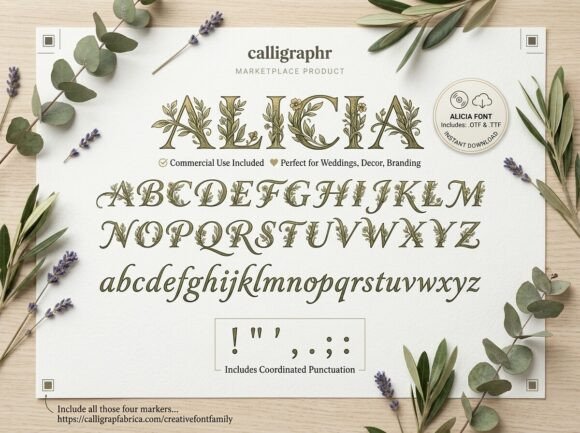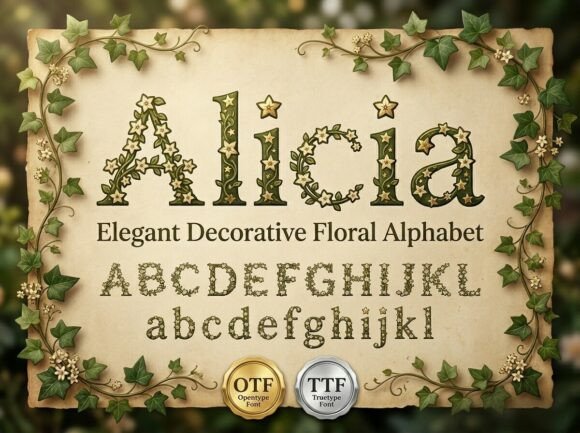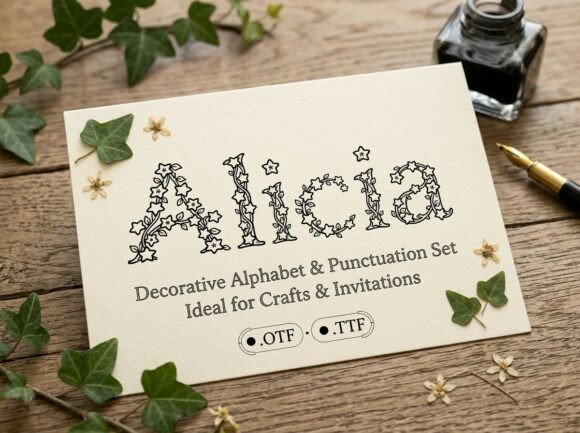
Alicia: The Botanical Serif Collection Redefining Classic Elegance
In the realm of typography, few fonts manage to capture the essence of elegance and organic beauty as effectively as Alicia. This high-contrast serif font, intertwined with lush botanical details, is not just a typeface but an experience. Alicia offers a unique blend of classic sophistication and natural charm, making it an ideal choice for designers and crafters looking to infuse their projects with a touch of timeless, garden-inspired beauty.
The Unique Features of Alicia
What sets Alicia apart from standard floral fonts is its innovative integration of greenery directly into the anatomy of the stems and serifs. This distinctive feature creates a captivating “growing” effect, as if the letters themselves are sprouting from the page. The high-contrast design of Alicia adds to its allure, providing a professional structure that anchors layouts while offering a soft, organic finish. This blend of sharp and gentle elements makes Alicia a versatile font suitable for a wide range of applications.
Best Use Cases for Alicia
Alicia’s unique characteristics make it particularly well-suited for projects that demand a combination of elegance and natural charm. Some of the best use cases for Alicia include:
- Wedding Invitations: Add a touch of whimsy and romance to wedding invitations, making them truly unforgettable.
- Organic Skincare Branding: Perfect for brands that want to convey a sense of natural beauty and purity.
- Florist Shop Identities: Help florists and garden centers stand out with a font that speaks directly to their love of nature and beauty.
- Upscale Lifestyle Editorial Design: Elevate editorial content with a sophisticated yet organic feel.
Design and Crafting with Alicia
For designers and crafters, Alicia offers a wealth of creative possibilities. Its distinctive botanical elements can add a decorative touch to a variety of projects, from stationery and packaging to digital media and advertising. When working with Alicia, consider the following tips:
- Mix and Match: Combine Alicia with other fonts to create visually striking contrasts and hierarchies.
- Play with Color: Take advantage of Alicia’s organic feel by experimenting with earthy tones and pastel colors.
- Emphasize Details: Highlight the intricate botanical details of Alicia to add texture and interest to your designs.
The Benefits of Using Alicia
Apart from its aesthetic appeal, Alicia offers several practical benefits for designers and crafters:
- Versatility: Alicia’s unique blend of elegance and playfulness makes it suitable for a wide range of projects.
- Timeless Appeal: Unlike trend-specific fonts, Alicia’s classic beauty ensures it will remain relevant for years to come.
- Emotional Connection: Alicia’s organic, garden-inspired design can help create an emotional connection with audiences.
Alicia is more than just a font – it’s a design statement. With its high-contrast serifs, lush botanical details, and innovative “growing” effect, Alicia redefines classic elegance for the modern era. Whether you’re a designer, crafter, or simply someone who appreciates beautiful typography, Alicia offers a unique opportunity to add a touch of timeless, garden-inspired beauty to your projects. So why settle for ordinary when you can create something truly extraordinary with Alicia?